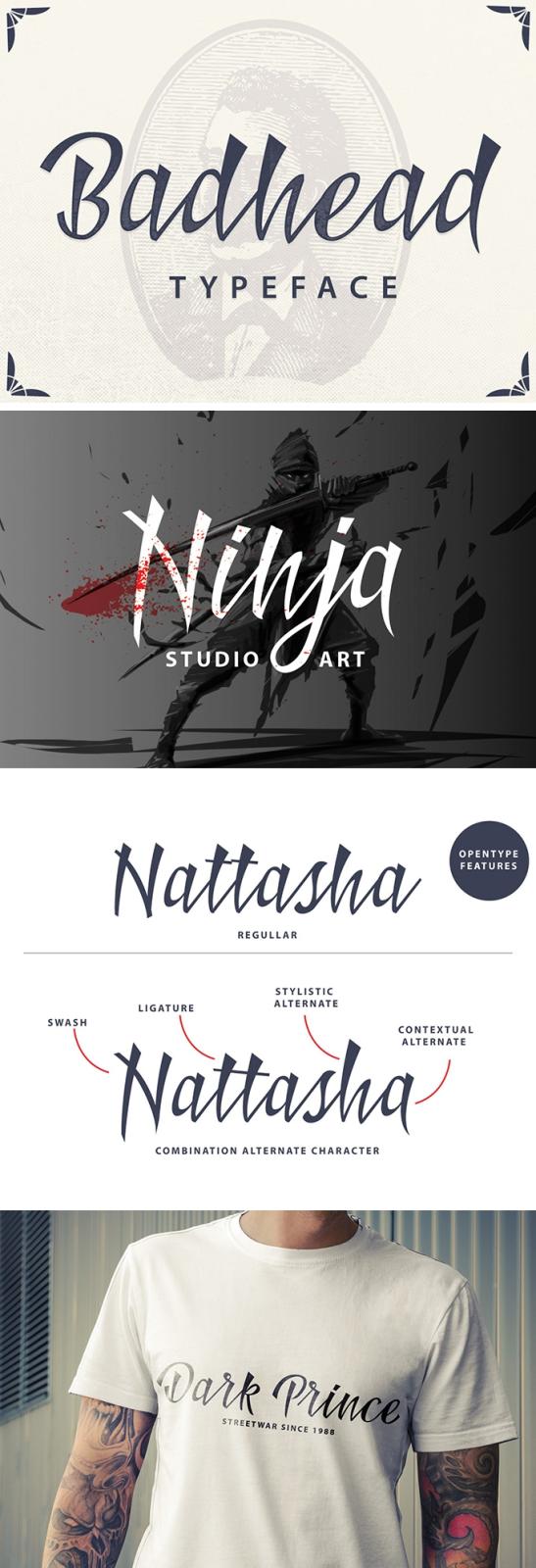
Badhead Typeface
It's one of the most fresh looking display font out of all decorative typefaces! And it's not a boasting false indication without a backup of real facts: let us put a light on this design wonder.
Badhead includes 246 glyphs and alternate characters with OpenType features. Stylistic alternates, Ornament, Swash you can access all those alternate characters by using OpenType savvy programs such as Adobe Illustrator and Adobe InDesign. Mix alternate characters to add an attractive message to your work! This font is just perfect for branding, greeting cards, logotypes, or any design with a strong and elegant touch.